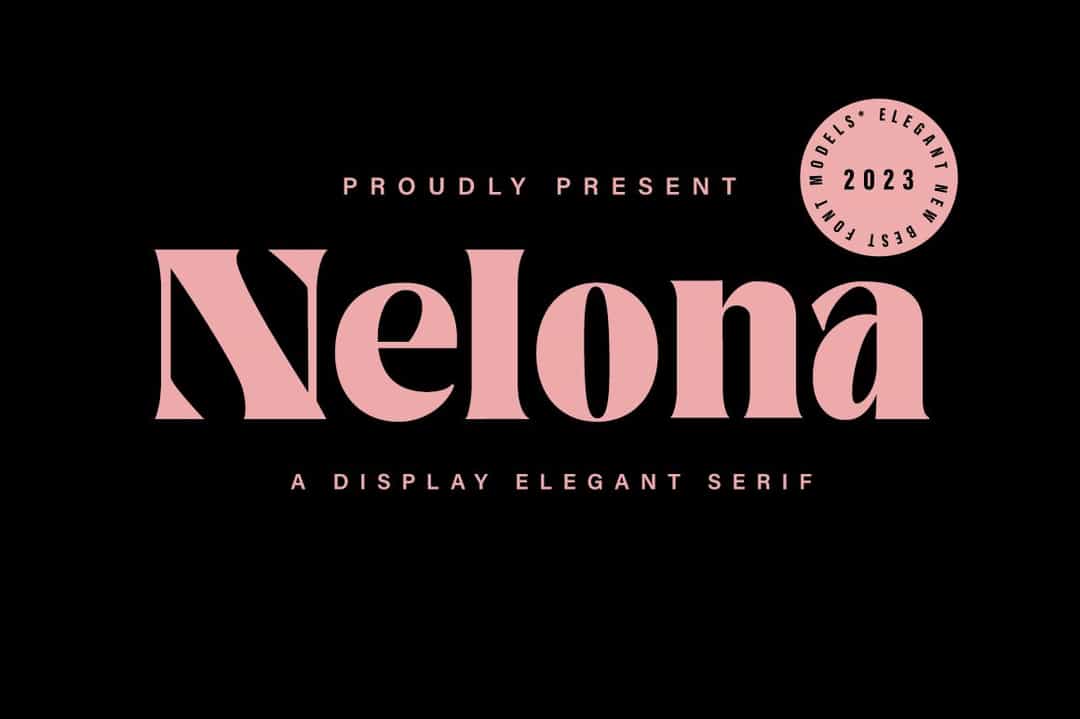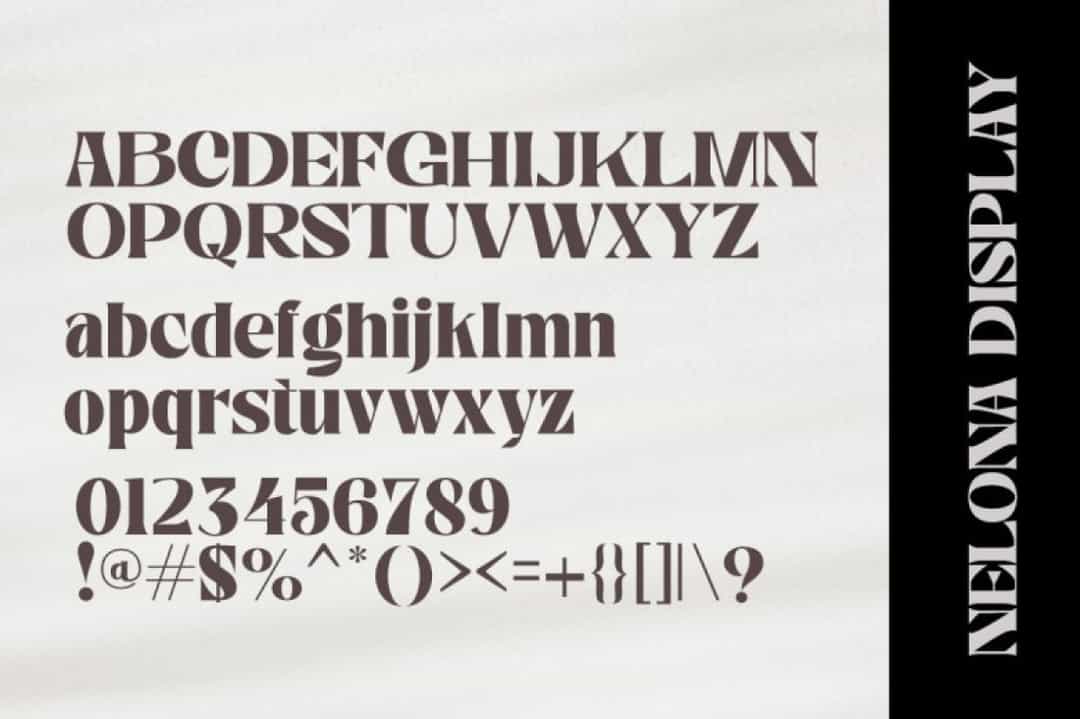
Nelona is an exquisite serif typeface created when your mind is filled with creative thoughts, inspired by natural, bold serif style that fits right in with today’s fashion trends. Bold, balanced and diverse; Nelona creates luxury and elegance – including lowercase/uppercase numbers/letters as well as various forms of punctuation punctuations marks and types.